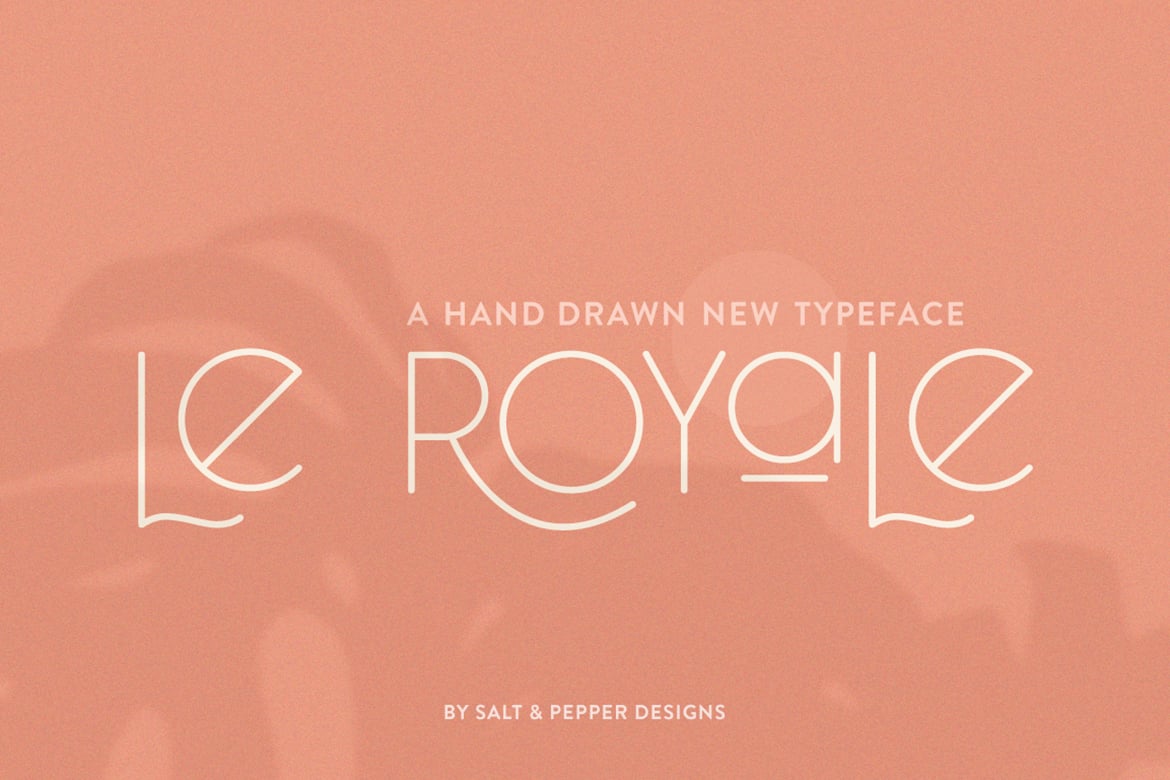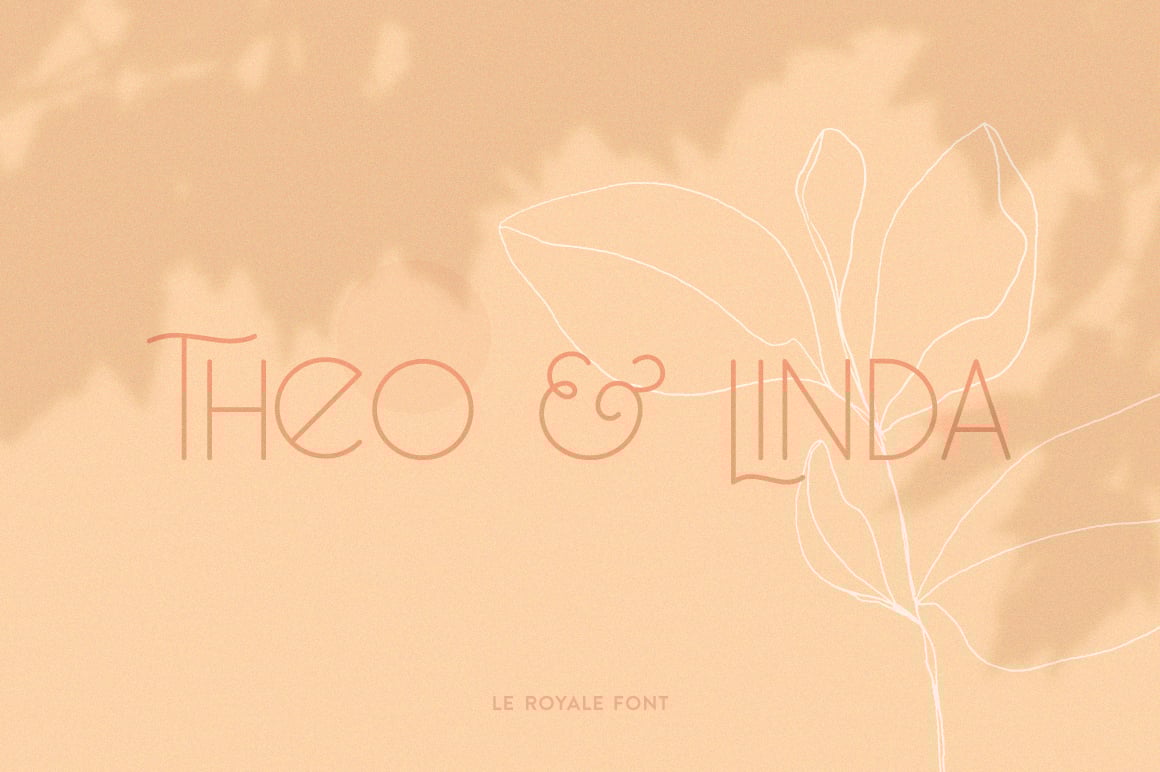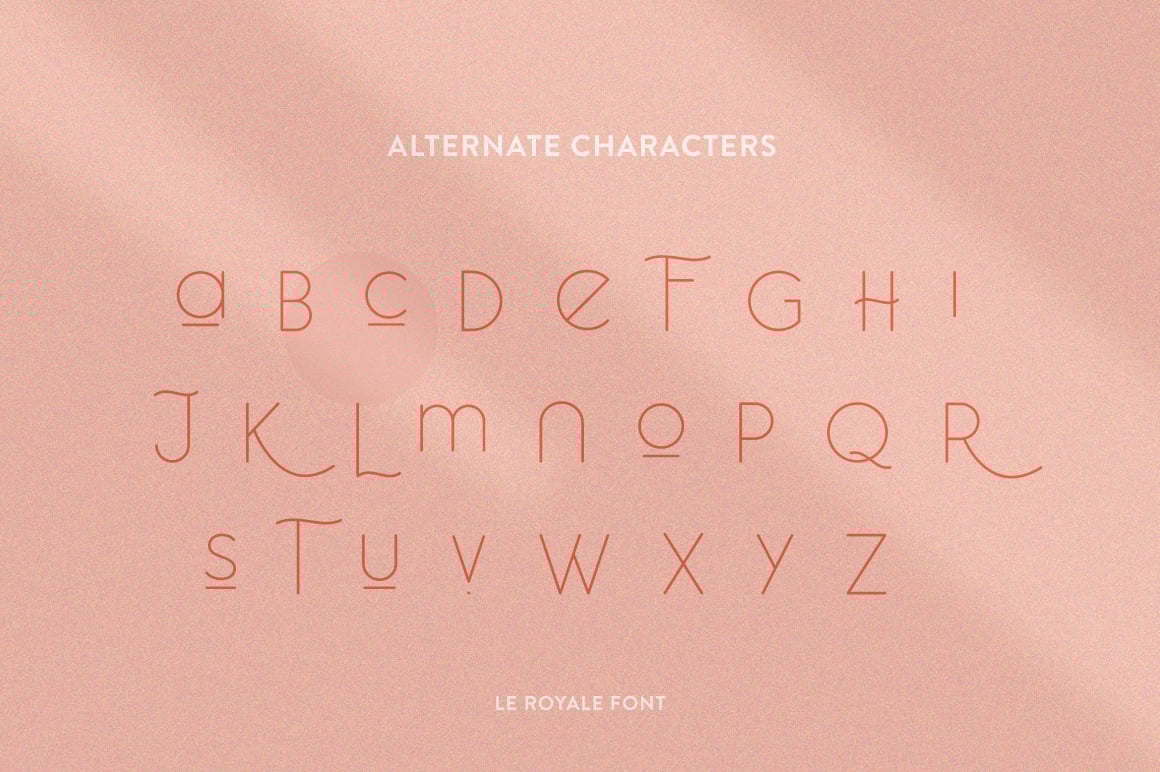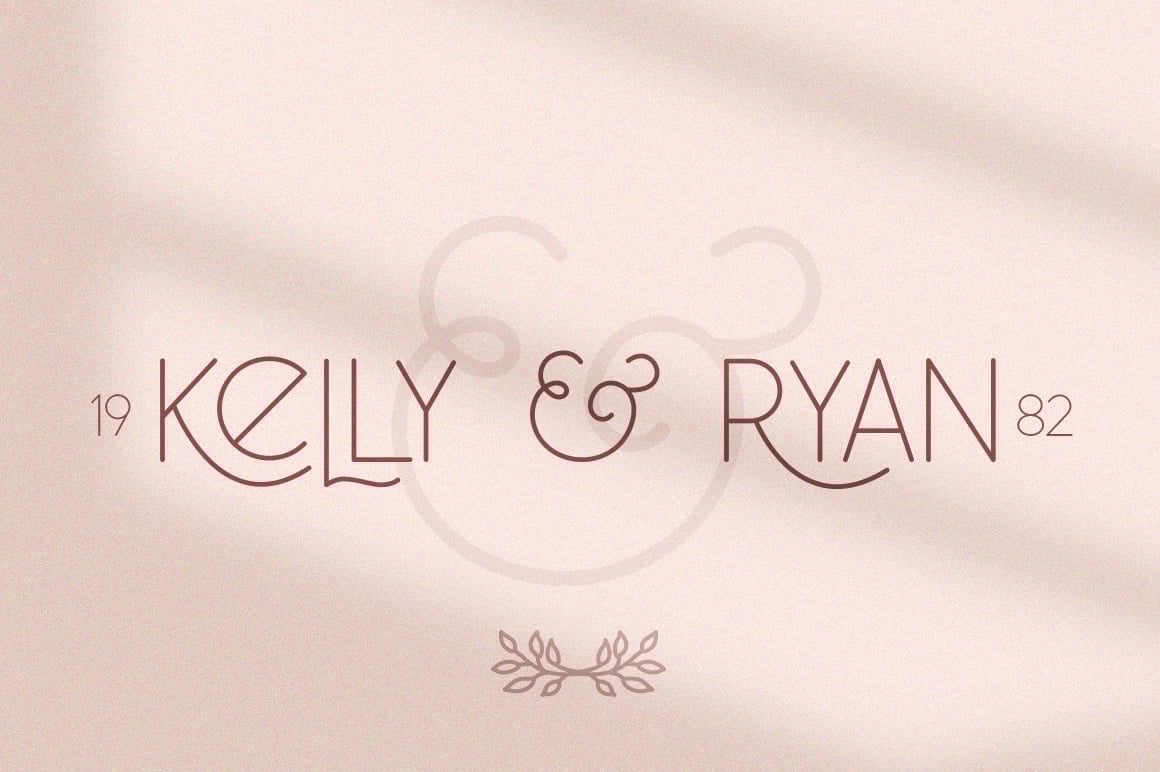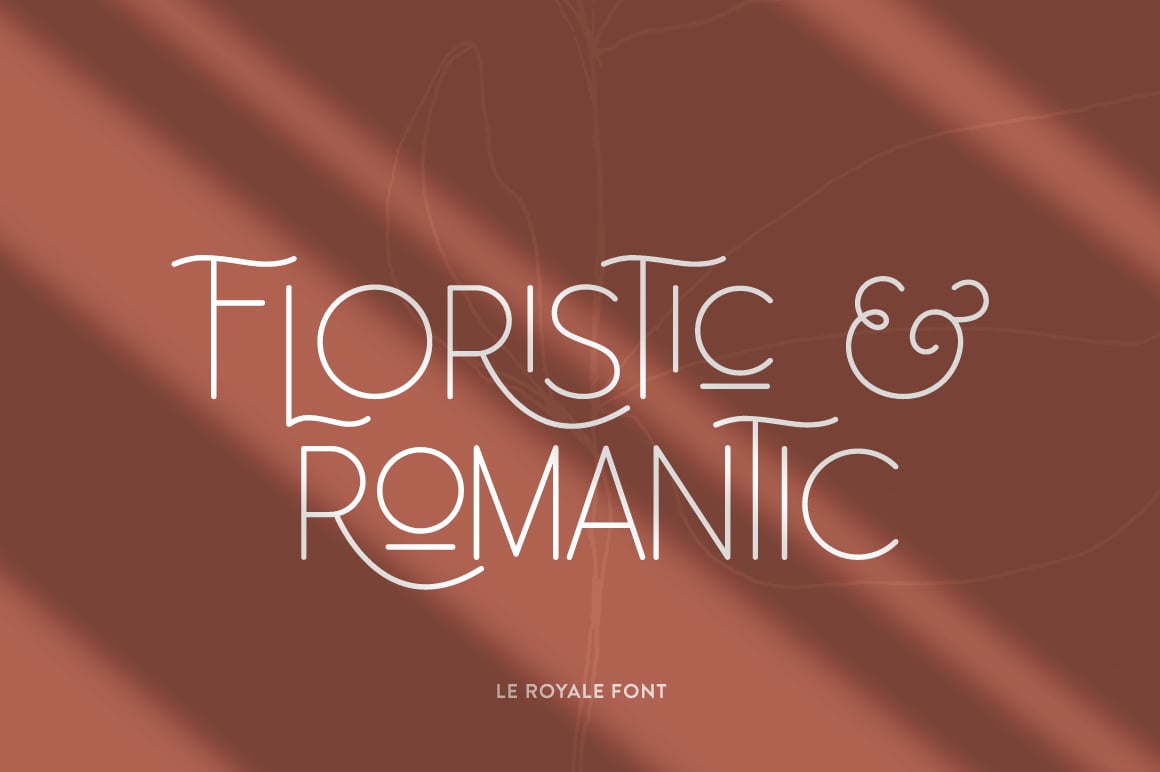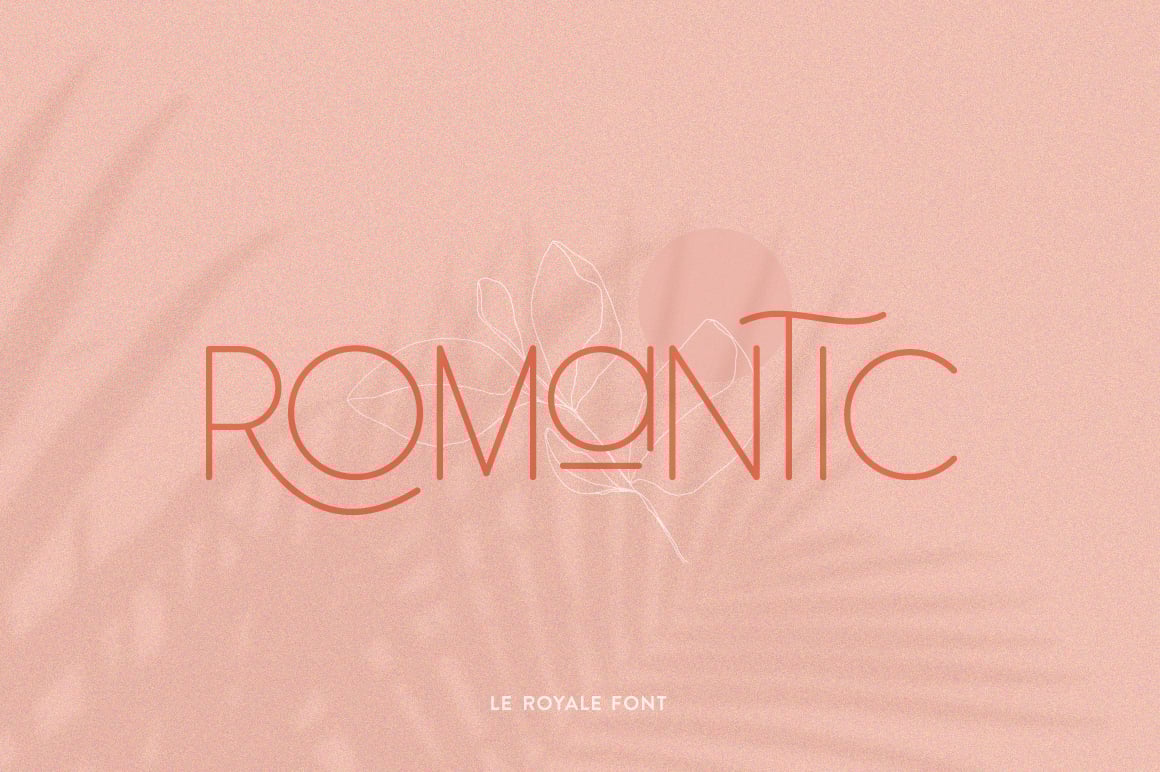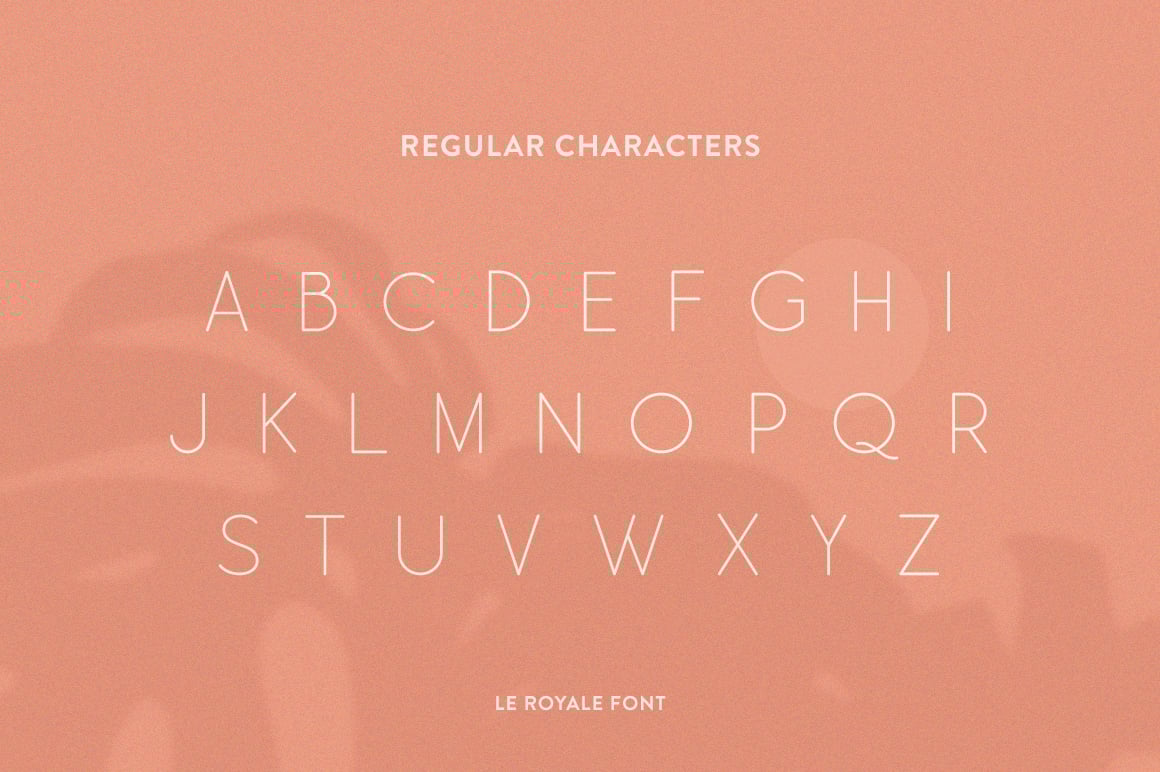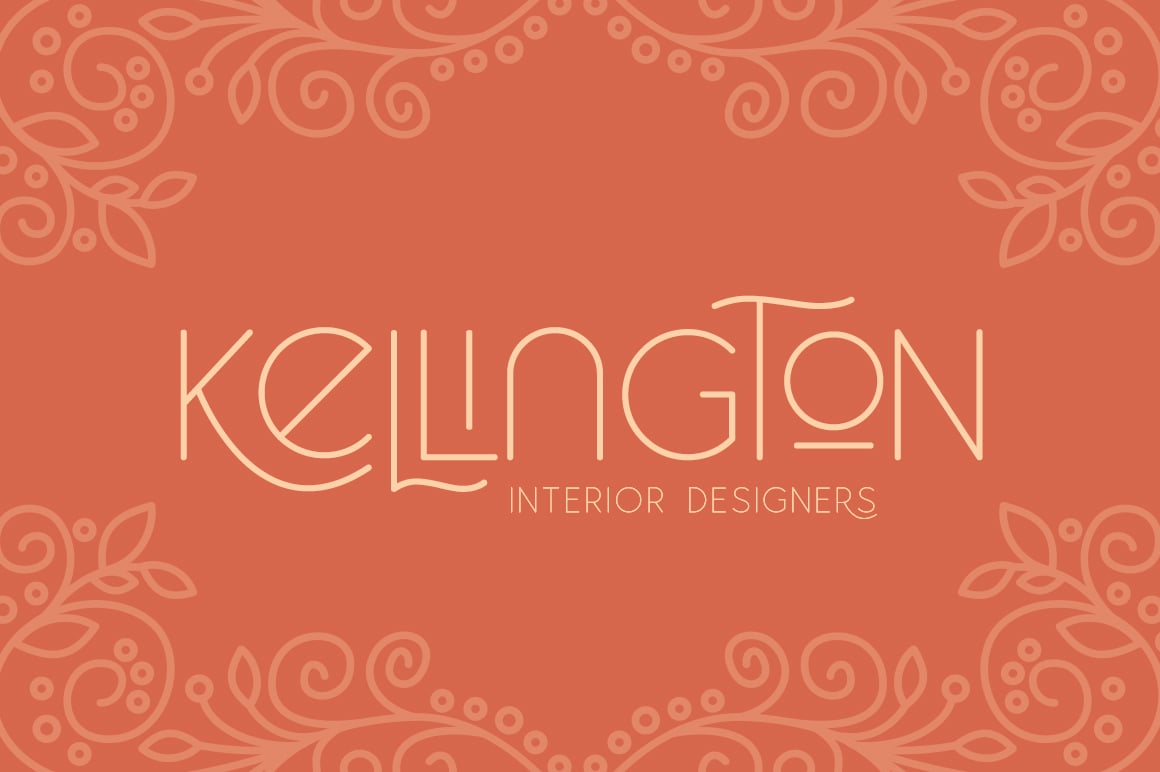
Le Royale Font
Le Royale is a fabulously elegant new font from Salt & Pepper Designs. A homage to all of those classic, sans fonts that look great but could have done with a little twist! So we created Le Royale to make your designs a little more unique!